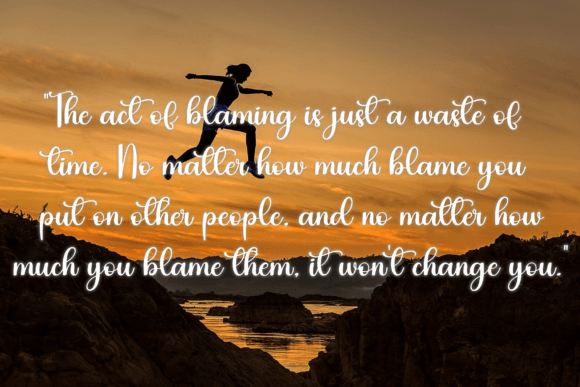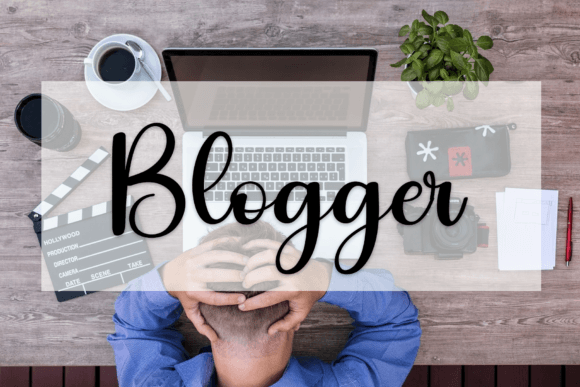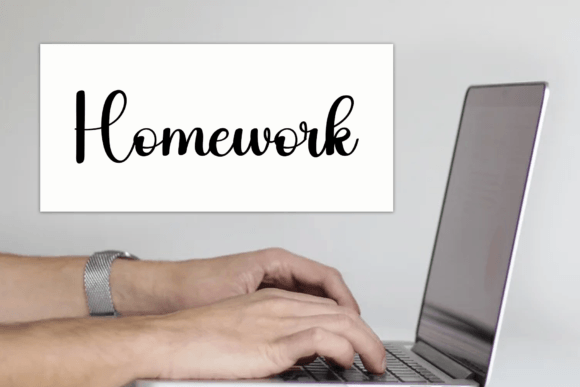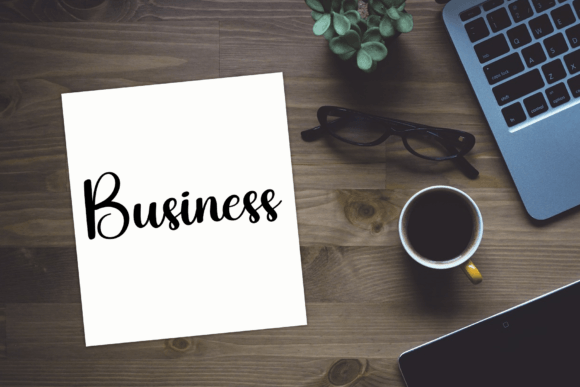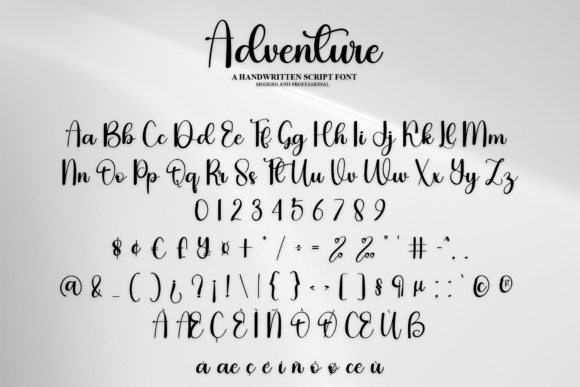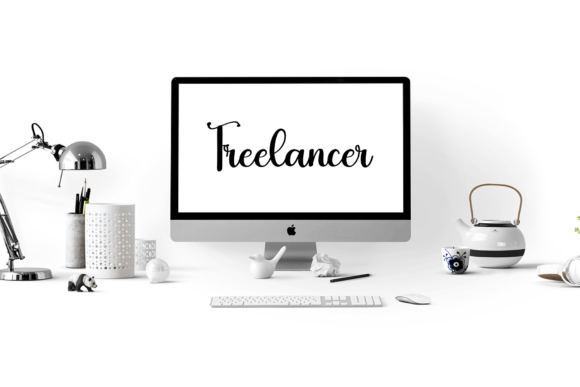
Introducing Adventure Font: Elevate Your Designs with a Unique Handwritten Style
Are you a designer, crafter, or DIY enthusiast looking for a font that can add a touch of personality to your projects? Look no further than Adventure Font, a carefully crafted, round-lettered handwritten font that’s perfect for making your designs stand out. In this article, we’ll explore the features and benefits of Adventure Font, and show you how it can be used to enhance a wide range of projects.
What is Adventure Font?
Adventure Font is a unique, handwritten font that was designed to bring a sense of fun and adventure to your designs. With its round, bubbly letters, this font is perfect for creating eye-catching titles, invitations, letters, and more. Whether you’re working on a DIY project, creating a logo for a business, or simply looking for a way to add some personality to your social media posts, Adventure Font is the perfect choice.
Key Features of Adventure Font
So what sets Adventure Font apart from other fonts on the market? Here are just a few of its key features:
- Unique, handwritten design: Adventure Font has a distinctive, hand-crafted look that’s sure to grab attention.
- Round, bubbly letters: The font’s rounded edges and playful lettering make it perfect for creating fun, eye-catching designs.
- Highly versatile: Adventure Font can be used for a wide range of projects, from titles and invitations to letters and more.
- Easily readable: Despite its playful design, Adventure Font is still highly readable, making it perfect for use in both digital and print applications.
How to Use Adventure Font
So now that you know a bit more about Adventure Font, let’s talk about how to use it. Here are a few ideas to get you started:
- DIY projects: Use Adventure Font to add a personal touch to your DIY projects, such as handmade cards, gift tags, and more.
- Logos and branding: Adventure Font is perfect for creating unique, eye-catching logos and branding materials for businesses and personal projects.
- Social media graphics: Add some personality to your social media posts with Adventure Font, perfect for creating eye-catching graphics and quotes.
- Invitations and events: Use Adventure Font to create custom invitations, event flyers, and more.
Tips for Getting the Most Out of Adventure Font
Here are a few tips for getting the most out of Adventure Font:
- Experiment with colors: Adventure Font looks great in a wide range of colors, so don’t be afraid to experiment and find the perfect hue for your design.
- Mix and match: Try pairing Adventure Font with other fonts and design elements to create a unique, eye-catching look.
- Use it sparingly: While Adventure Font is perfect for adding a touch of personality to your designs, it’s best used sparingly to avoid overwhelming the viewer.
Adventure Font is a unique, handwritten font that’s perfect for designers, crafters, and DIY enthusiasts looking to add a touch of personality to their projects. With its round, bubbly letters and highly versatile design, Adventure Font is sure to become a go-to font in your design arsenal. So why wait? Download Adventure Font today and start creating eye-catching designs that are sure to stand out!
Whether you’re a seasoned designer or just starting out, Adventure Font is a great addition to any design collection. So go ahead, take your designs on an adventure, and see where your creativity takes you!